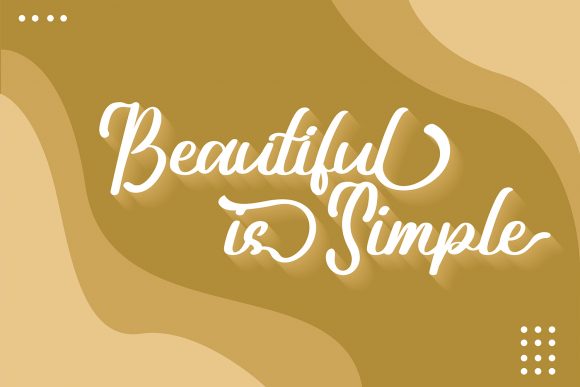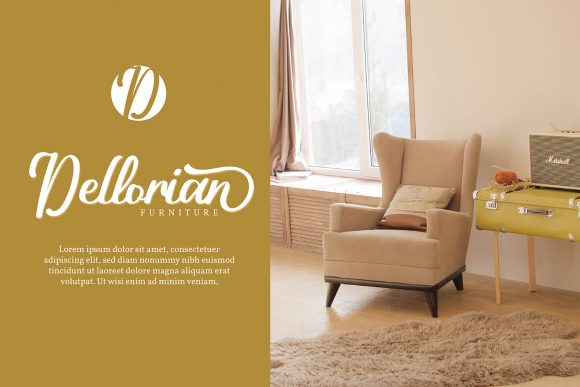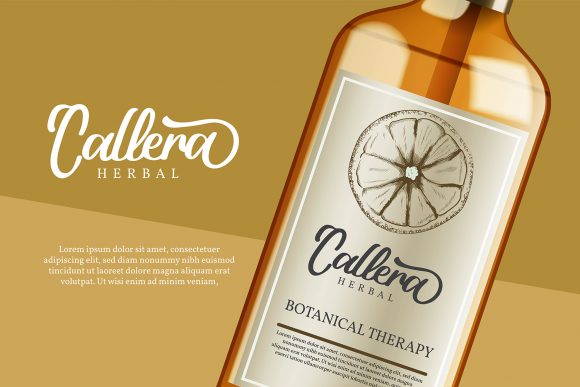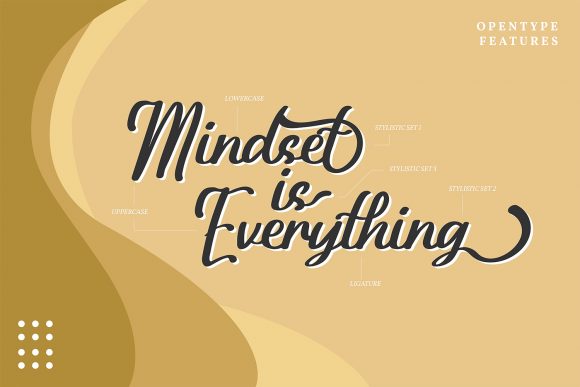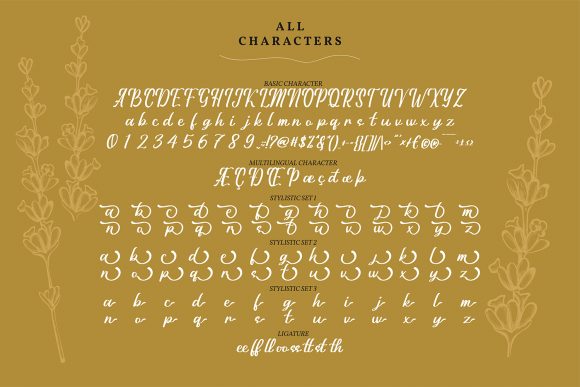
Introduction to La Vilya Font
Have you ever sat in front of your computer, staring at a blank screen, waiting for inspiration to strike? It’s that moment when you know you want to create something truly special, but the right tools seem to be missing. For designers, this is a common dilemma, but what if I told you that there’s a solution that can elevate your creative project to the next level? Enter La Vilya Font, a unique handwritten font that’s about to become your new best friend.
La Vilya Font is more than just a design resource – it’s a game-changer. With its high-quality, cursive script, you’ll be able to add a personal touch to any project, from digital designing to crafting and greeting card making. The best part? It’s available for free download, making it accessible to designers of all levels. Whether you’re working on a presentation, a blog post, or a social media graphic, La Vilya Font is the perfect addition to your design arsenal.
So why is La Vilya Font so valuable for designers? For starters, its transparent background makes it easy to layer and combine with other design elements. Plus, its versatility means it can be used in a wide range of creative contexts, from weddings to birthdays and everything in between. With La Vilya Font, the possibilities are endless, and we can’t wait to see what you create!
Key Features of La Vilya Font
- High-quality design resource ideal for creative projects and professional use
- Includes multiple font styles and weights for versatile application
- Features a transparent background, making it suitable for various design elements
- Designed with a clean and elegant aesthetic, perfect for modern and minimalist designs
- Supports a wide range of languages, including Latin, Cyrillic, and Greek alphabets
Honest Review: La Vilya Font
I recently had the chance to work with La Vilya Font, and I must say it’s been a great addition to my design resource library. This high quality font is perfect for any creative project that requires a unique and elegant touch.
What works well: ✨ The La Vilya Font has a beautiful, hand-drawn feel that makes it perfect for titles and headings. The transparent background allows for easy layering and blending with other design elements, giving you a lot of flexibility in your creative project. The font is also available for free download, which is a major bonus for designers on a budget.
What doesn’t work well: ⚠️ While the La Vilya Font is a great addition to any design project, it’s not suitable for projects that require a lot of bold or condensed text. The font is best used for titles and headings, as the letterforms can become a bit cluttered when used in large blocks of text.
Overall, I’m really impressed with La Vilya Font. It’s a great resource for designers who want to add a touch of elegance and sophistication to their creative project. With its high quality design and transparent background, it’s a great choice for any design project that requires a unique and eye-catching font.
- Perfect for titles and headings
- Hand-drawn feel adds a touch of elegance
La Vilya Font
La Vilya Font is a high-quality, elegant font perfect for any creative project. It’s available for free download and features a transparent background, making it easy to customize.
Tips for Getting the Most Out of La Vilya Font
For the best results, use La Vilya Font in combination with other high-quality design elements. Experiment with different font sizes and styles to create a unique look.
La Vilya Font is perfect for: